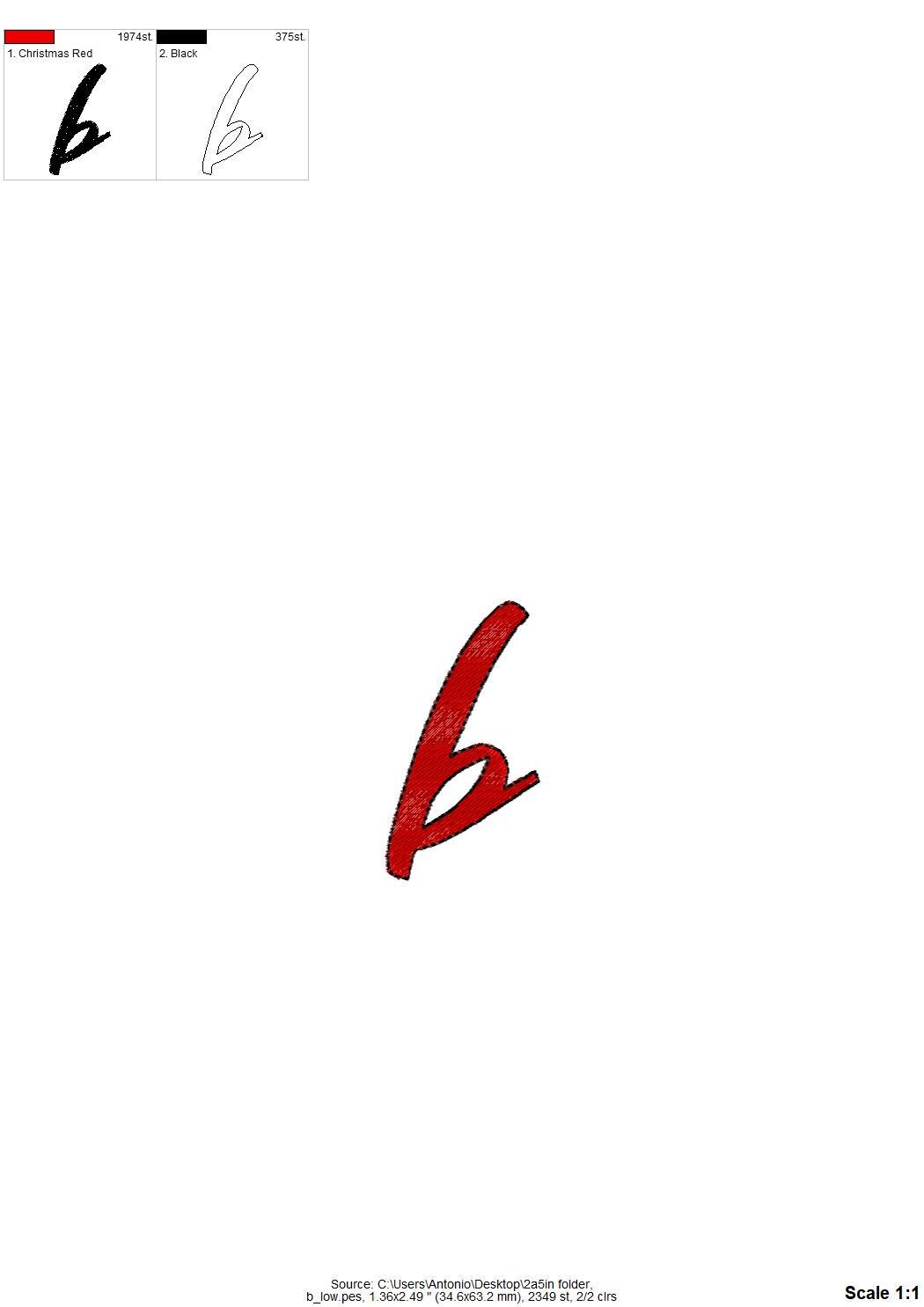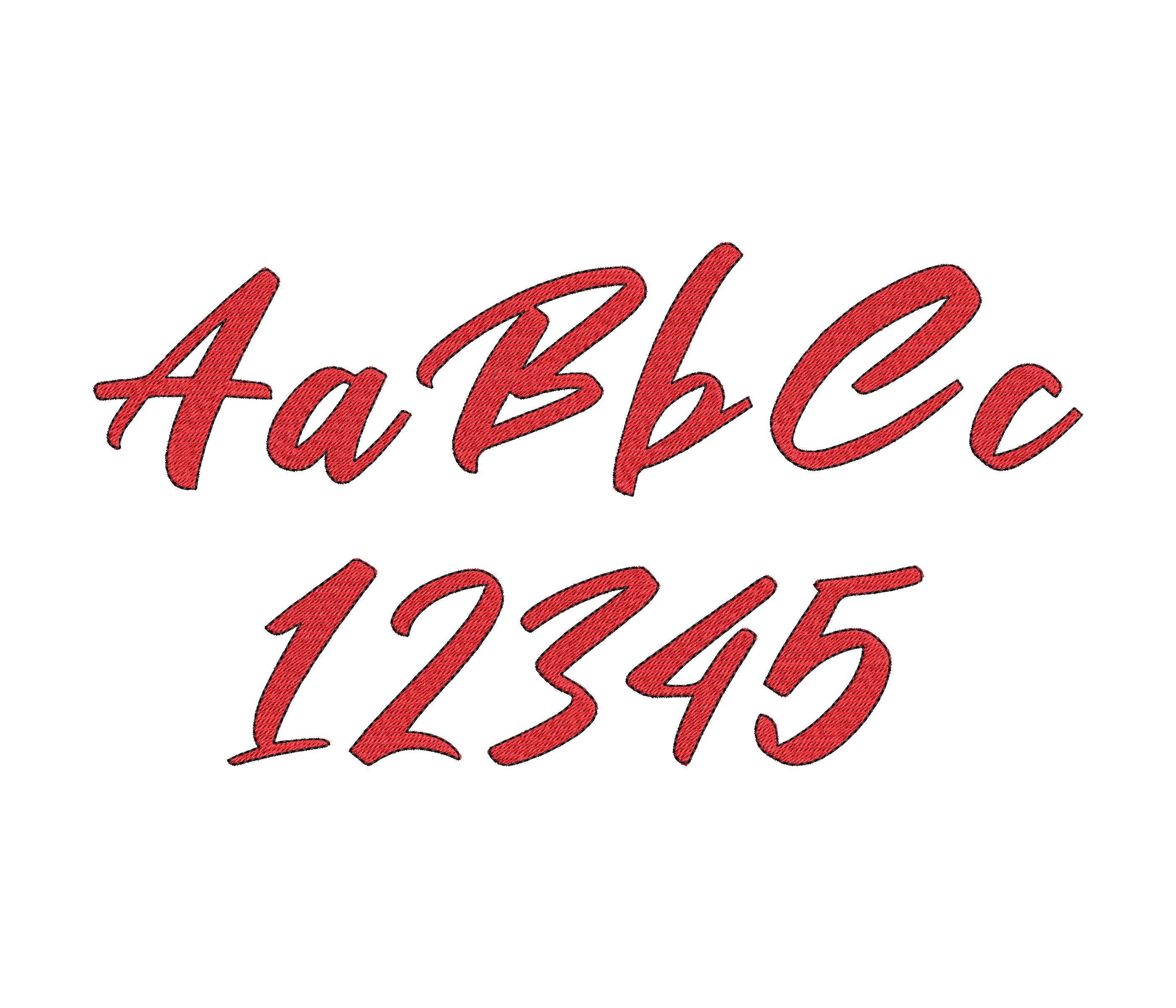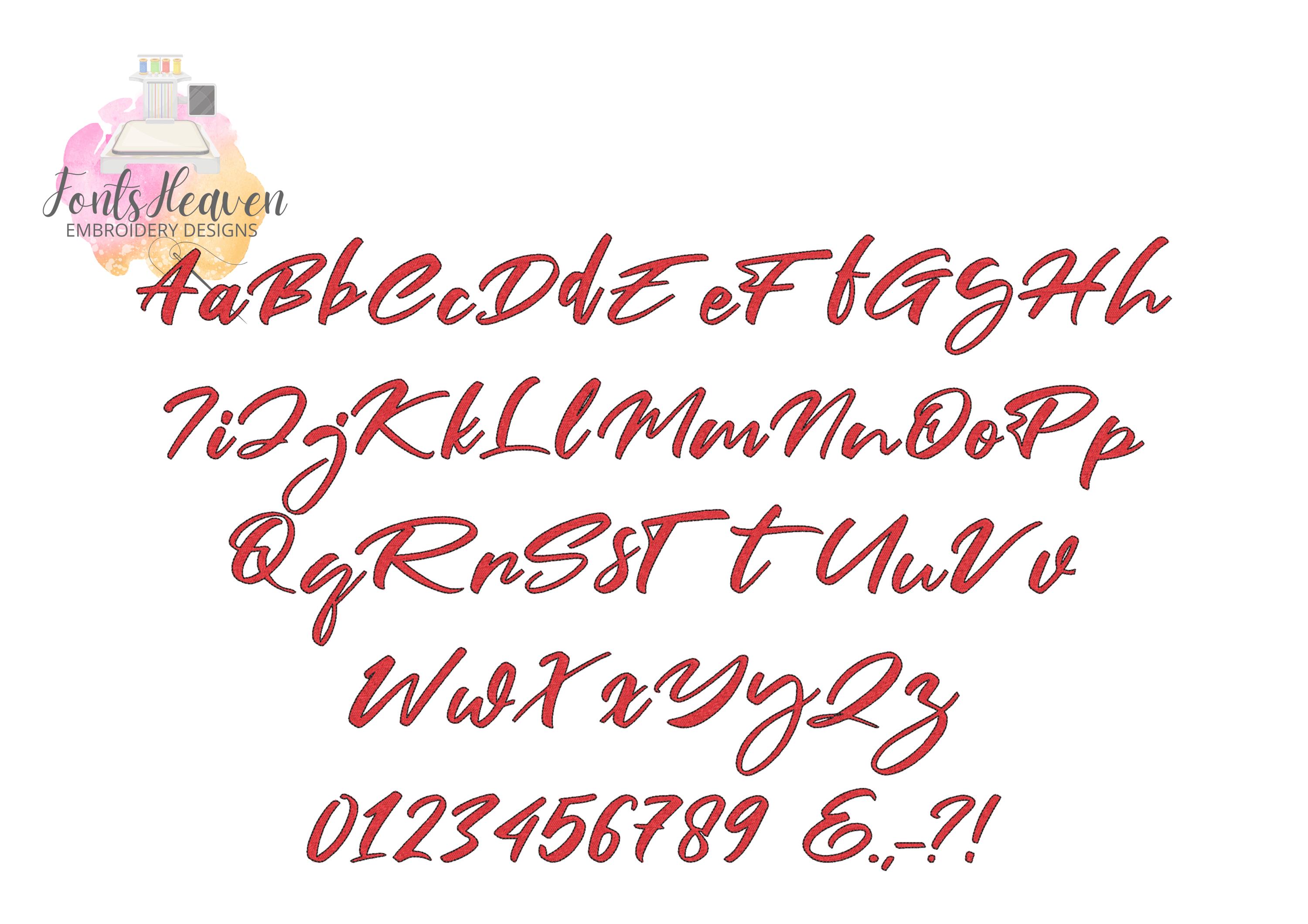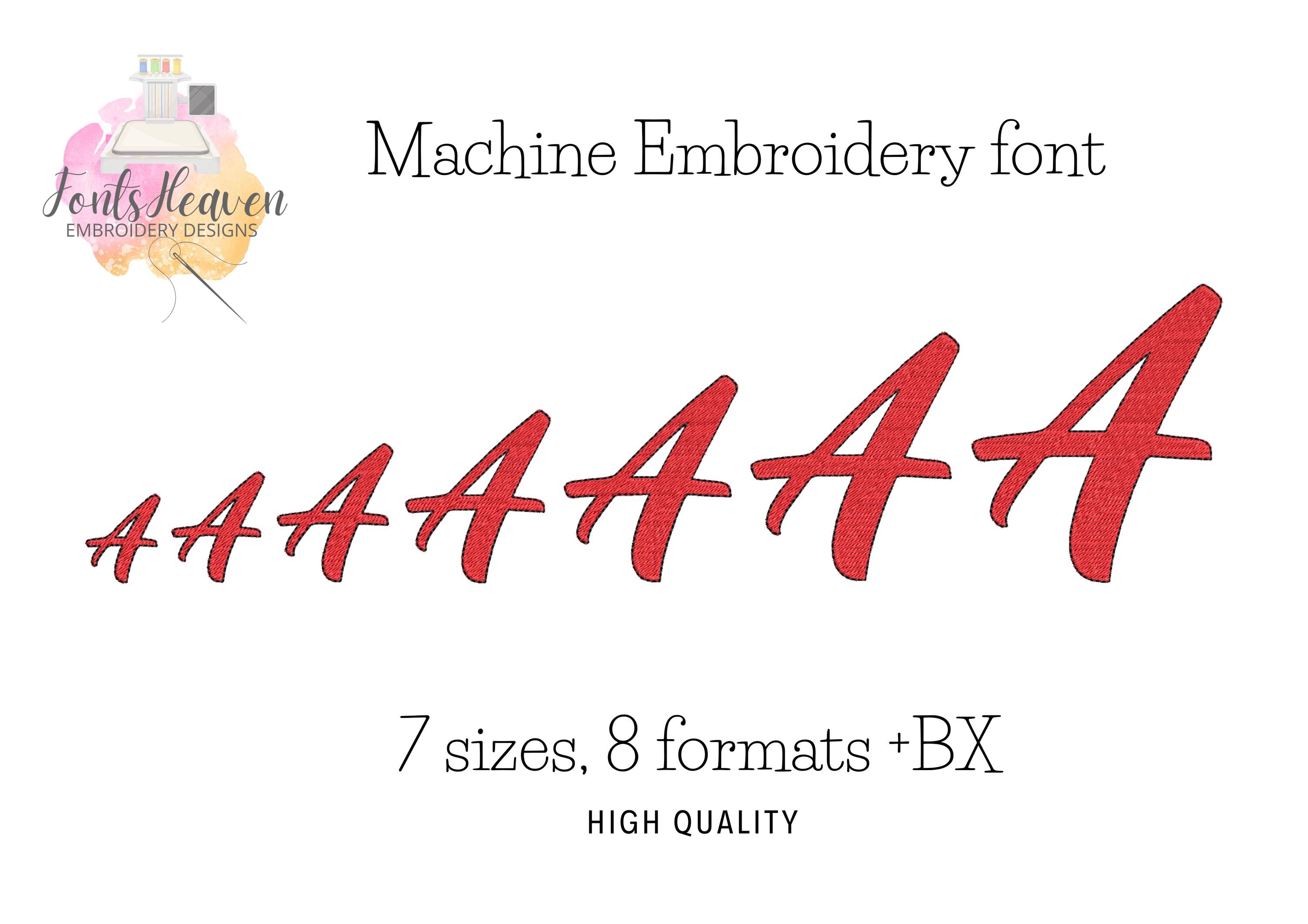
Embroidery FONT fill stitch and outline Alphabet Monogram machine embroidery designs many sizes 1.3 up to 4.4 inch BX and other formats
This design features a fill stitch font with a clean outline stitch.
Entire alphabet uppercase and lowercase letters Aa-Zz, numbers 0-9, and punctuation.